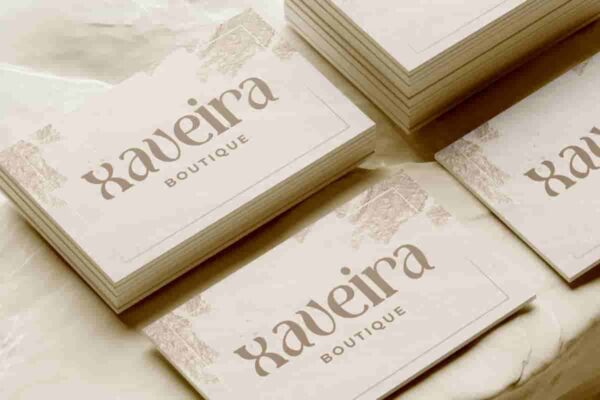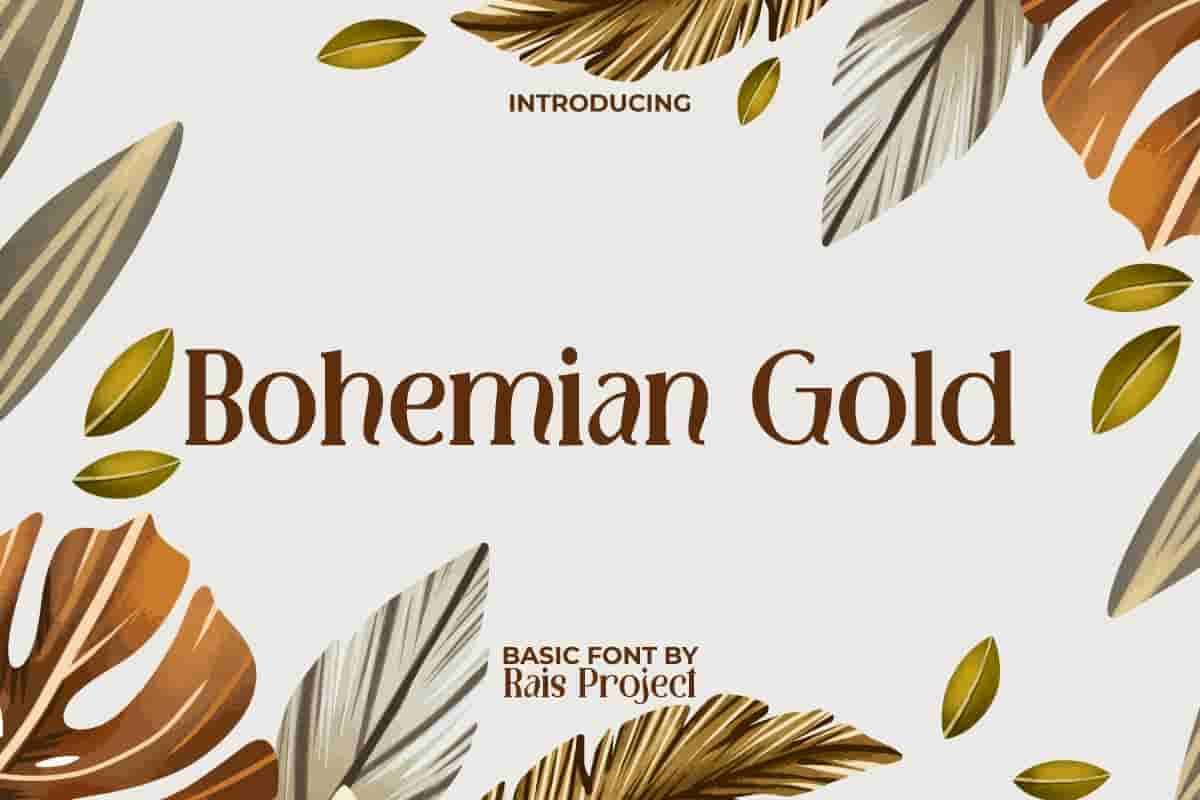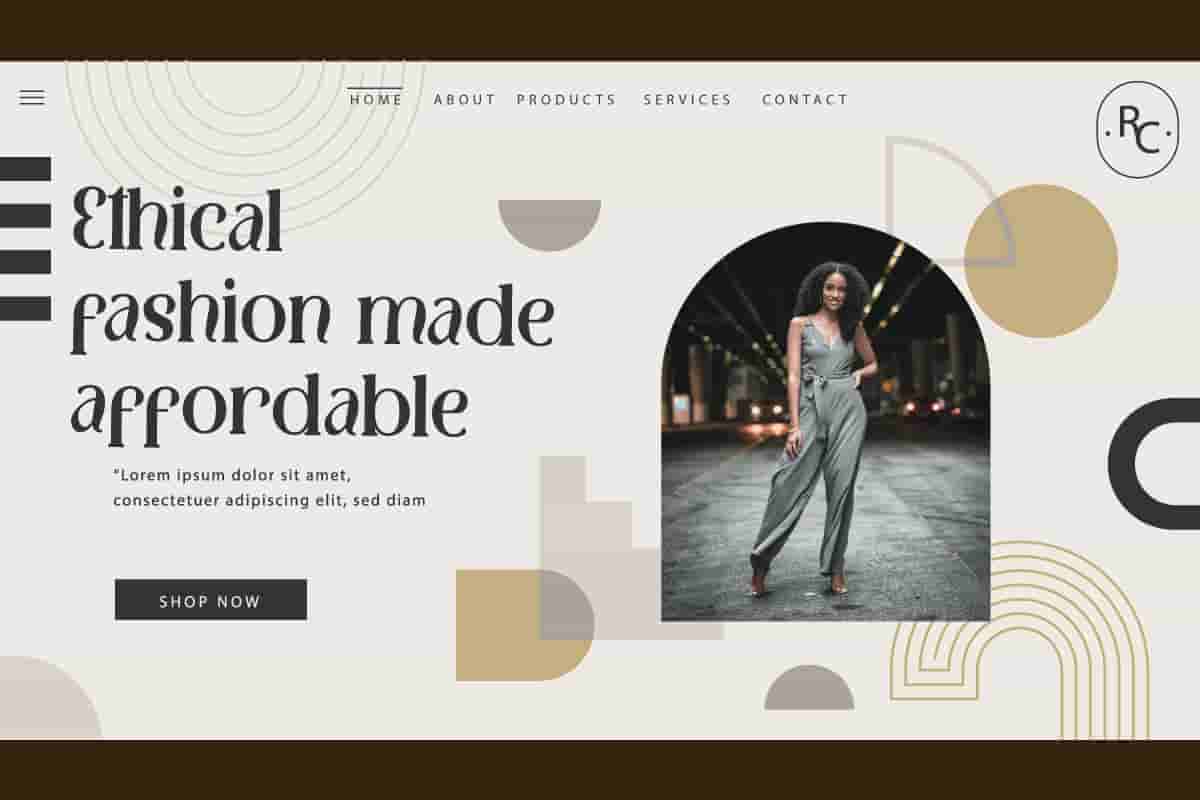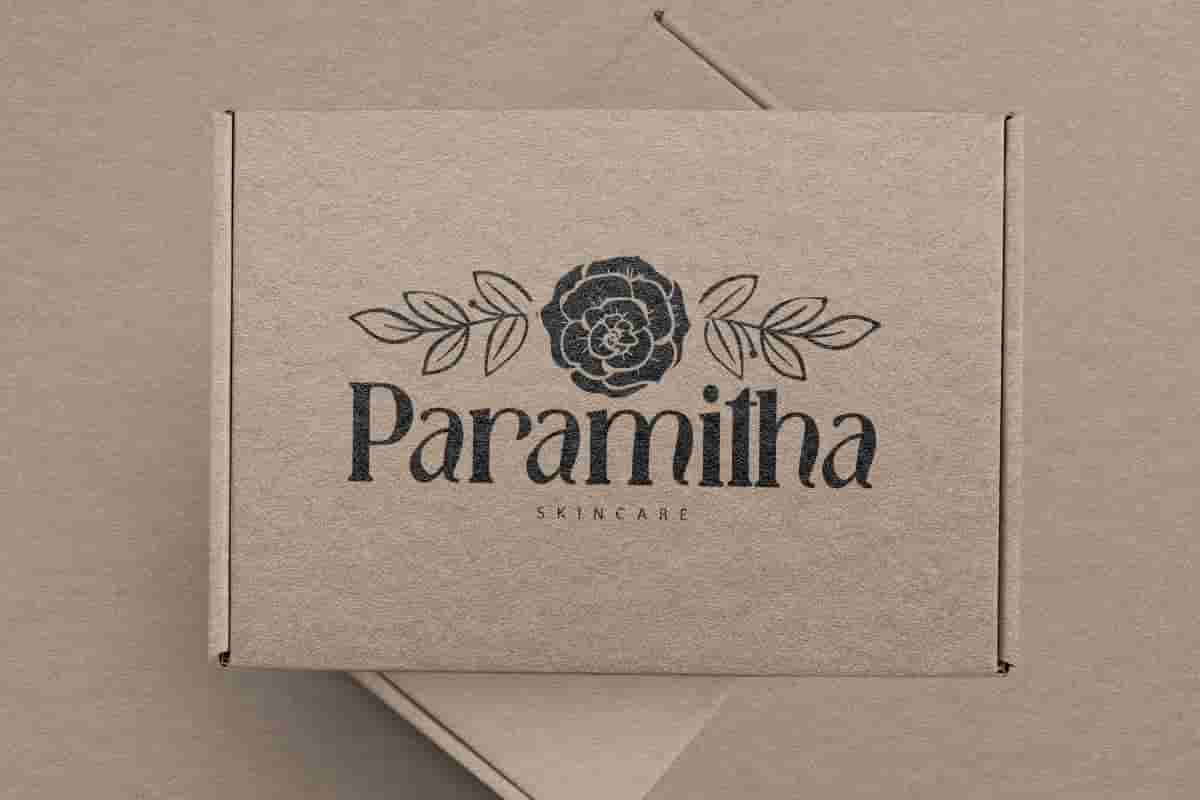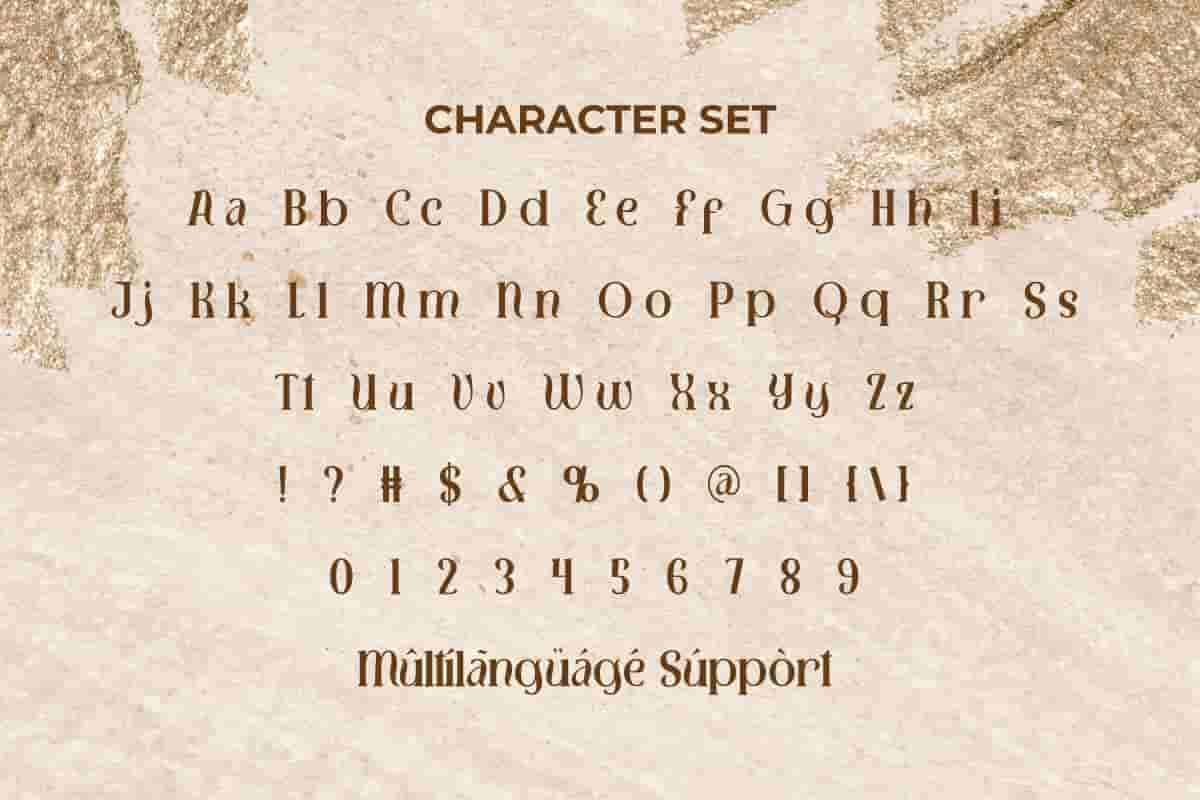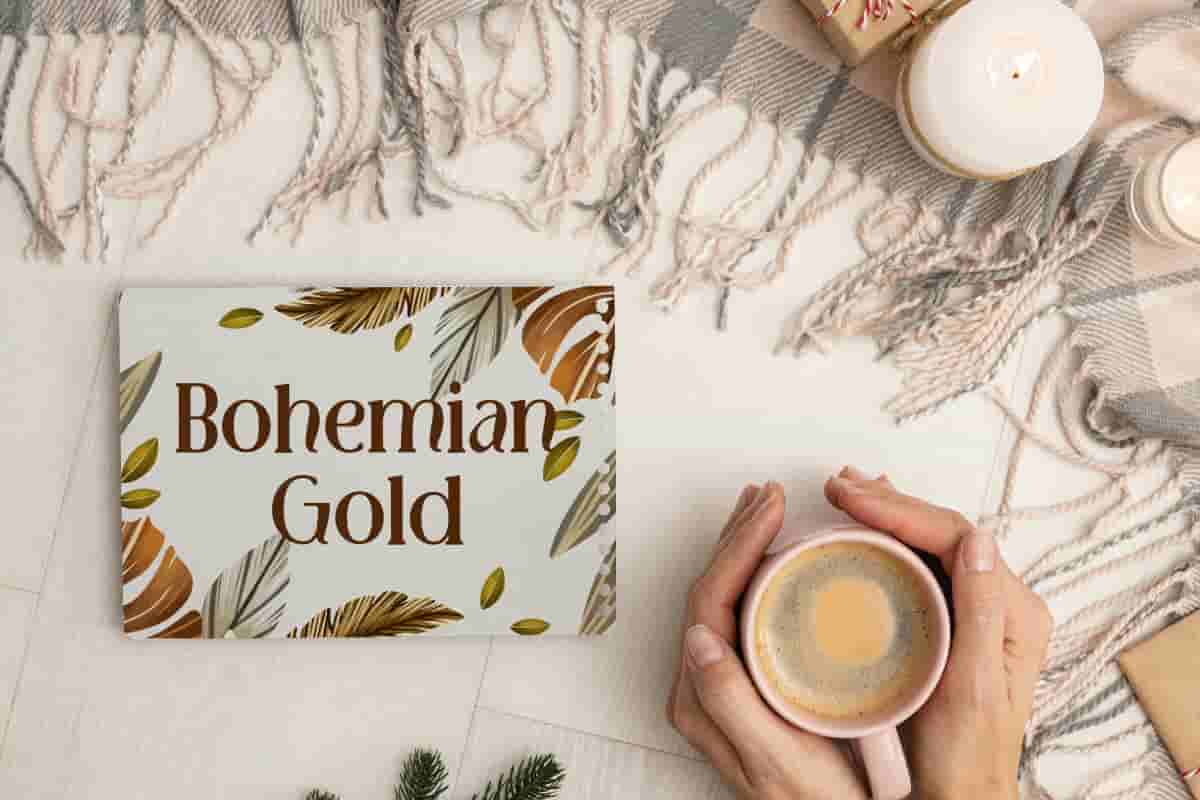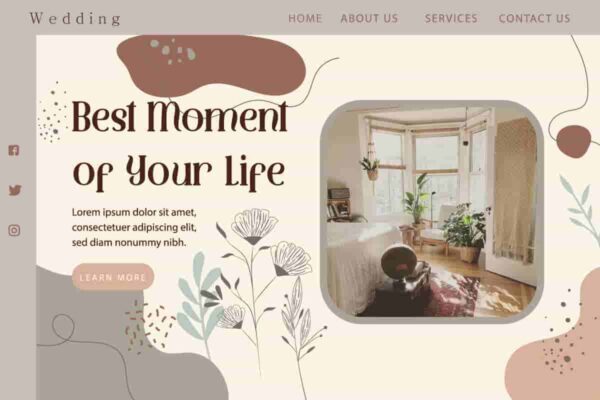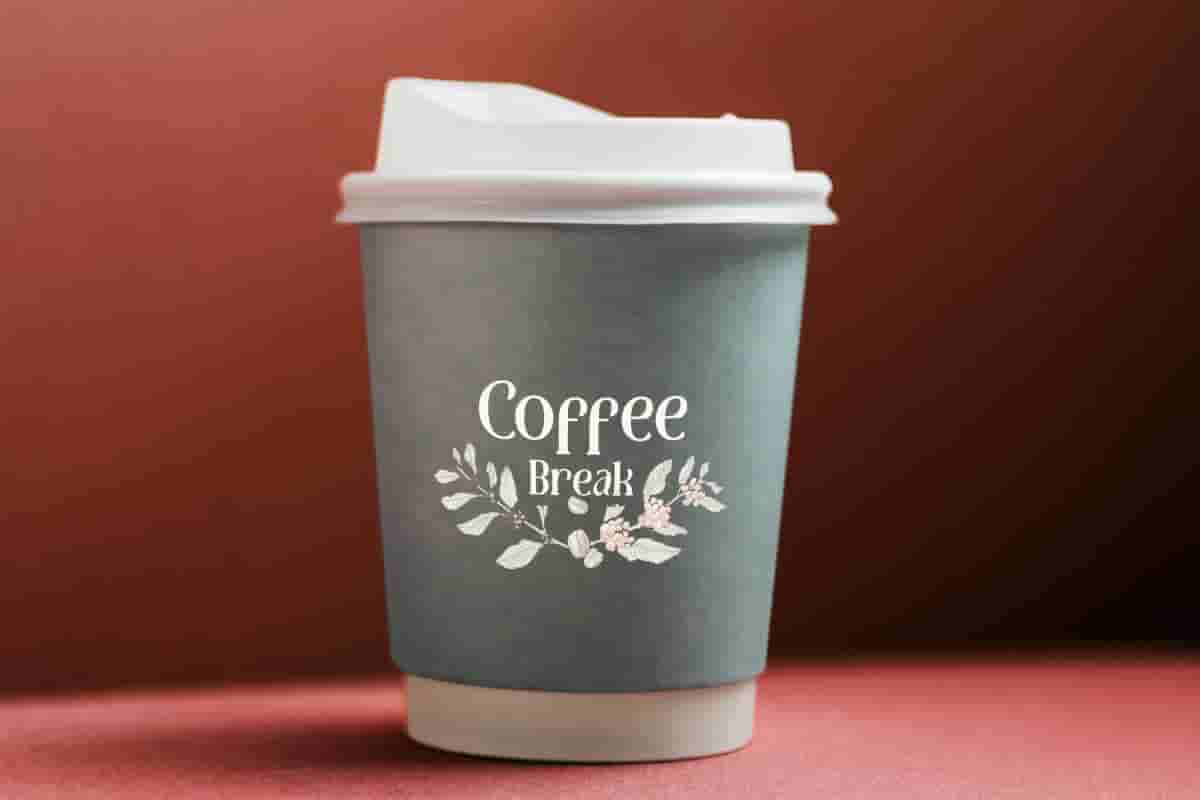
Bohemian Gold Font
Bohemian Gold Font is a unique aesthetic and stunning display font with little curvy beautiful style. This font is created to make your designs looks awesome and standout. Test this font right now and see the charm!
Bohemian Gold Font is a unique aesthetic and stunning display font with little curvy beautiful style. This font has a unique line shape that flows like leaves blown by the wind. It will be good for any designs, such as advertisement, brand image, cover, custom design, flyer, invitation, label, menu, poster, product packaging, quote, signage, stationery, website page, and more!
Bohemian Gold Font includes a full set of Uppercase and Lowercase Letters, Numerals, and large range of Punctuation. This stylish font will be suitable for various industries, such as accessories, advertising, cafe, crafting, even or wedding organizer, fashion, florist, marketing, movie, printing, publishing, restaurant, etc.